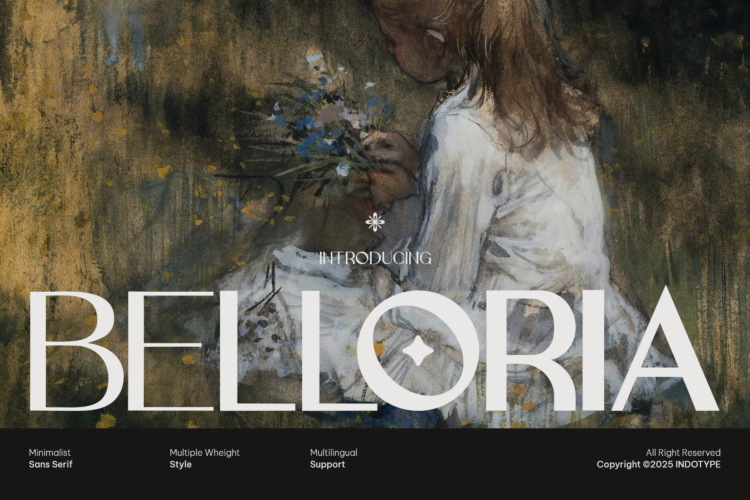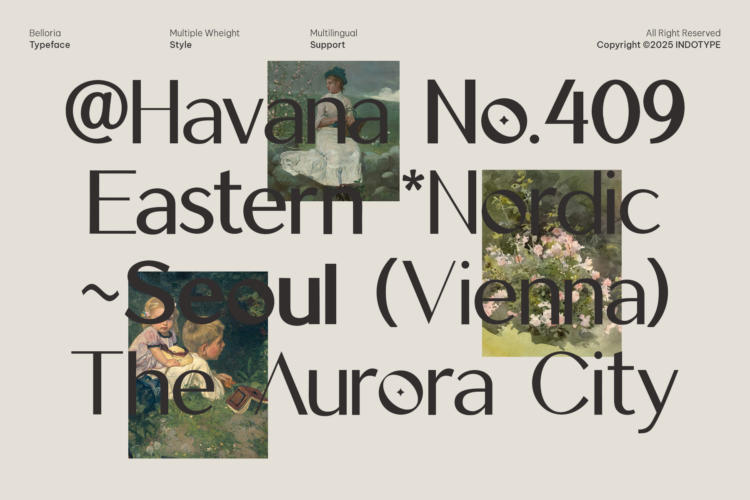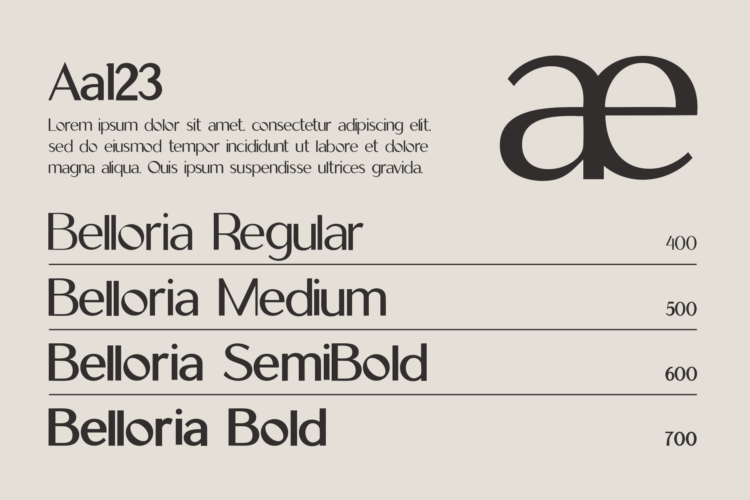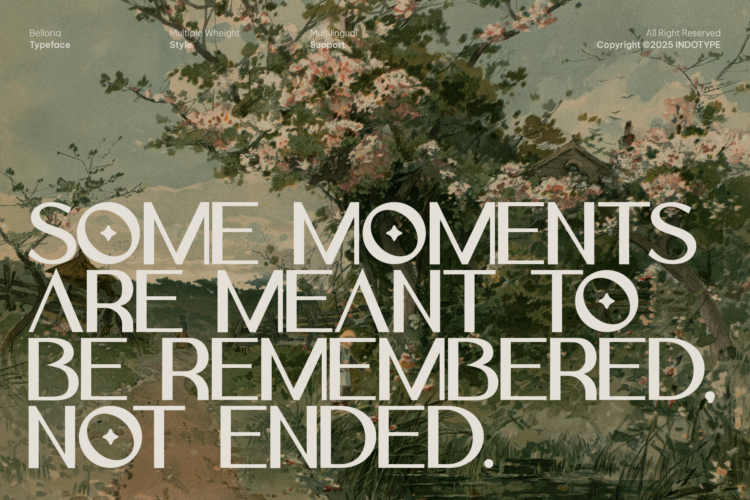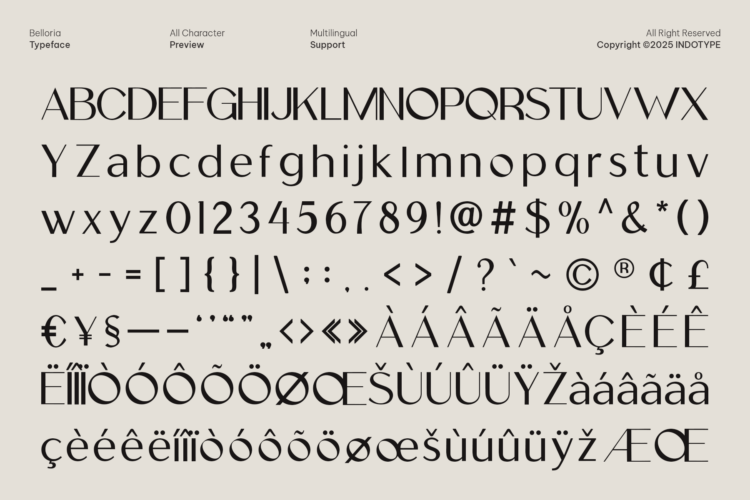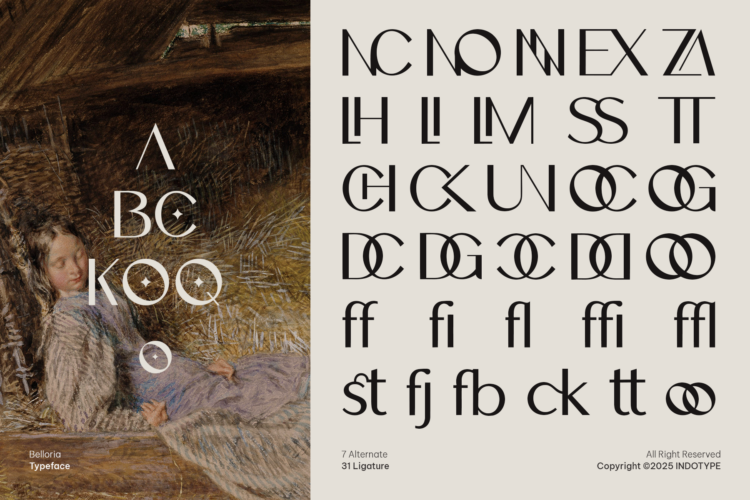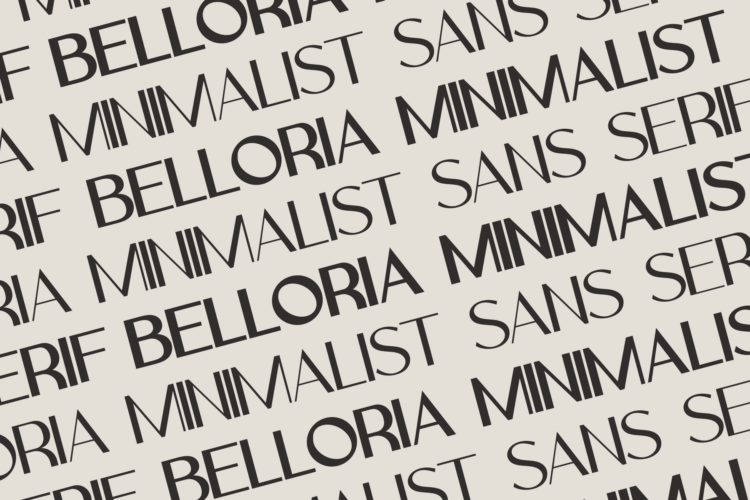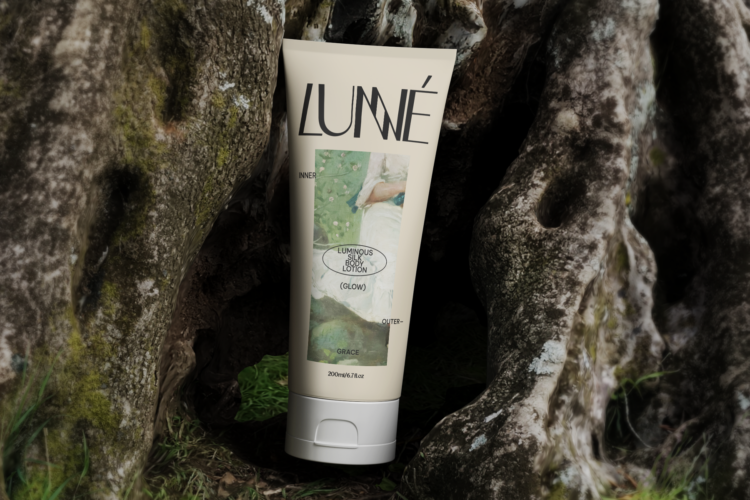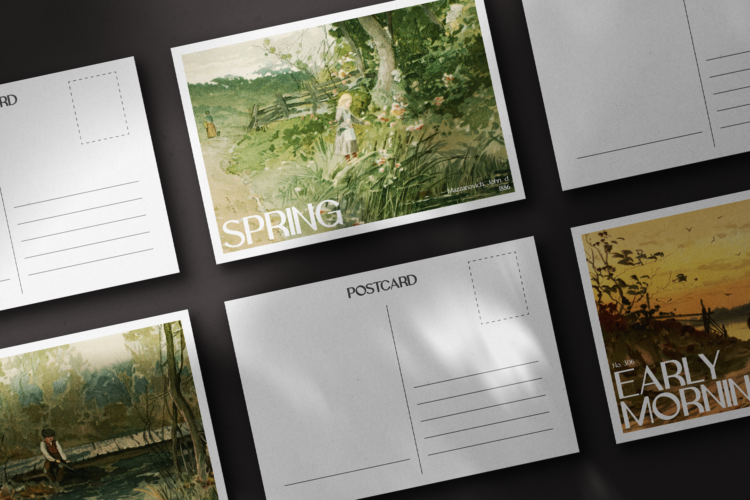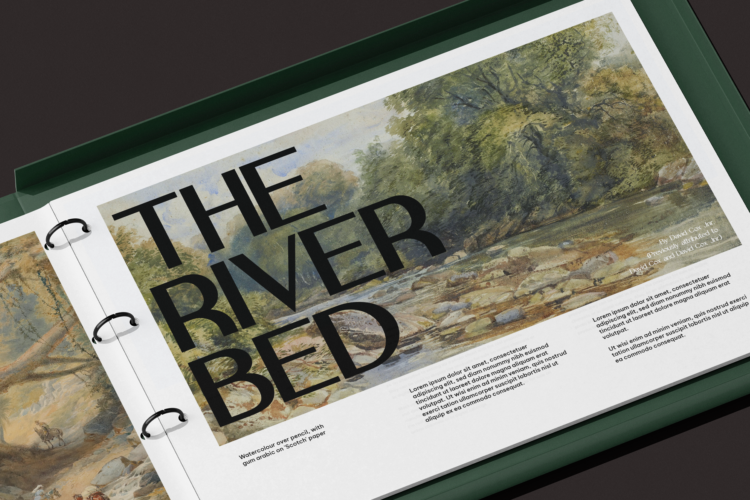
Belloria is a sophisticated and highly versatile sans-serif font family, meticulously crafted for clean, modern, and timeless design. Characterized by its minimalist aesthetic, balanced proportions, and subtle humanist warmth, Belloria excels in both display and text settings. With a comprehensive range of multiple weights and full multilingual support, it is a complete typographic system built for global brands, elegant editorial layouts, and refined digital interfaces. More than just a font, Belloria is a design partner. Its clarity and understated elegance make it perfect for corporate identities that demand trust, luxury brands that seek quiet sophistication, and UI/UX projects that require seamless readability. Whether used for a bold headline or delicate body copy, Belloria delivers consistent beauty and flawless functionality.
- Ideal for:Â Corporate Branding, Luxury & Lifestyle Brands, Editorial Design, Web & App UI, Annual Reports, Multilingual Publishing.
- Classification:Â Sans-Serif, Neo-Grotesque, Minimalist, Corporate.
- Attributes:Â Elegant, Clean, Versatile, Sophisticated, Timeless, Functional, Global.
- Regular, Medium, Semi Bold, Bold Weight Styles and Italic Style on Each Weight
- Including Ligature Glyphs